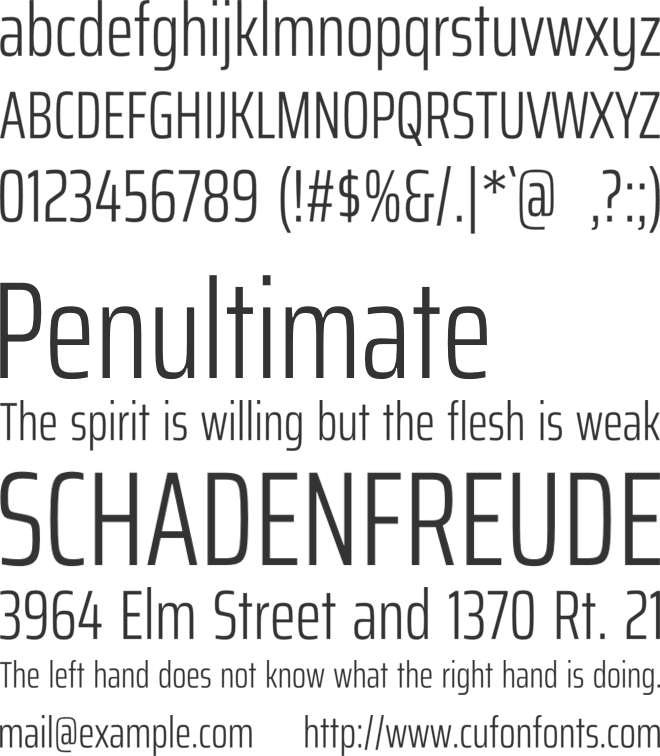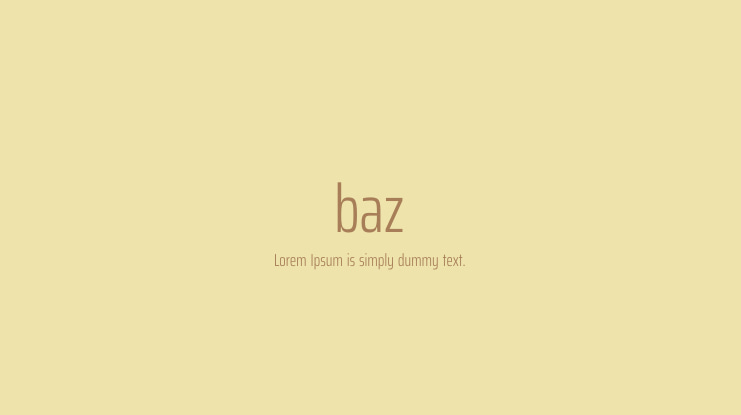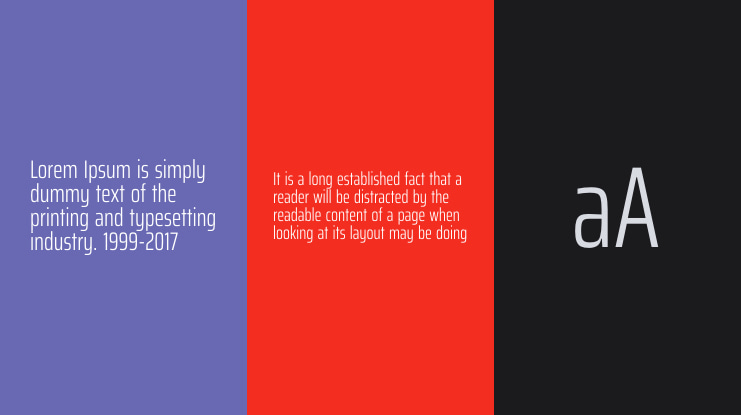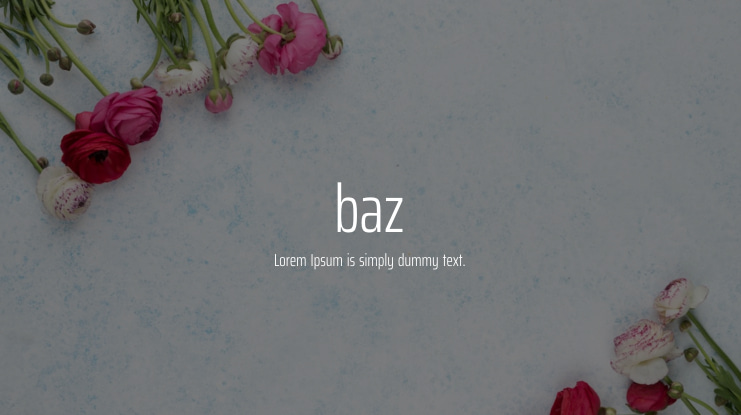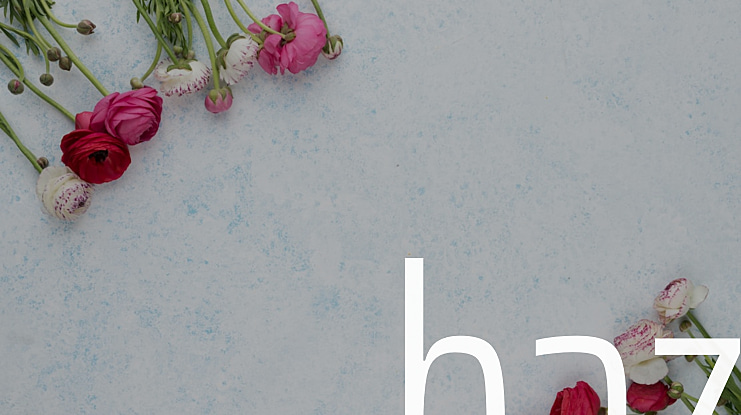
baz Font Family
Baz (باز, Again) font family serves as a complementary counterpart to the bazbaran. This family comprises five distinct styles. The initial two styles, baz light and baz LP light, represent traditional Arabic fonts featuring connected letters and a capital (Final) letter at the end of each word. The forms of the capital (Isolated) letters have been modified to achieve a more cohesive visual appeal within the text.
The bazr LP (Less Point) light denotes the only dot-reduced style in this font family, wherein glyphs containing two or more dots are substituted with new dotless shapes.
The baz MC (Mixed Case) light emulates Latin fonts, enabling typists to toggle between lowercase and uppercase letters through a software Caps Lock key. This software Caps Lock feature can be activated or deactivated by entering the Tatweel letter. more…
The final two styles consist of the Small Caps (baz SC light) and All Caps (baz AC light) versions within this font family.